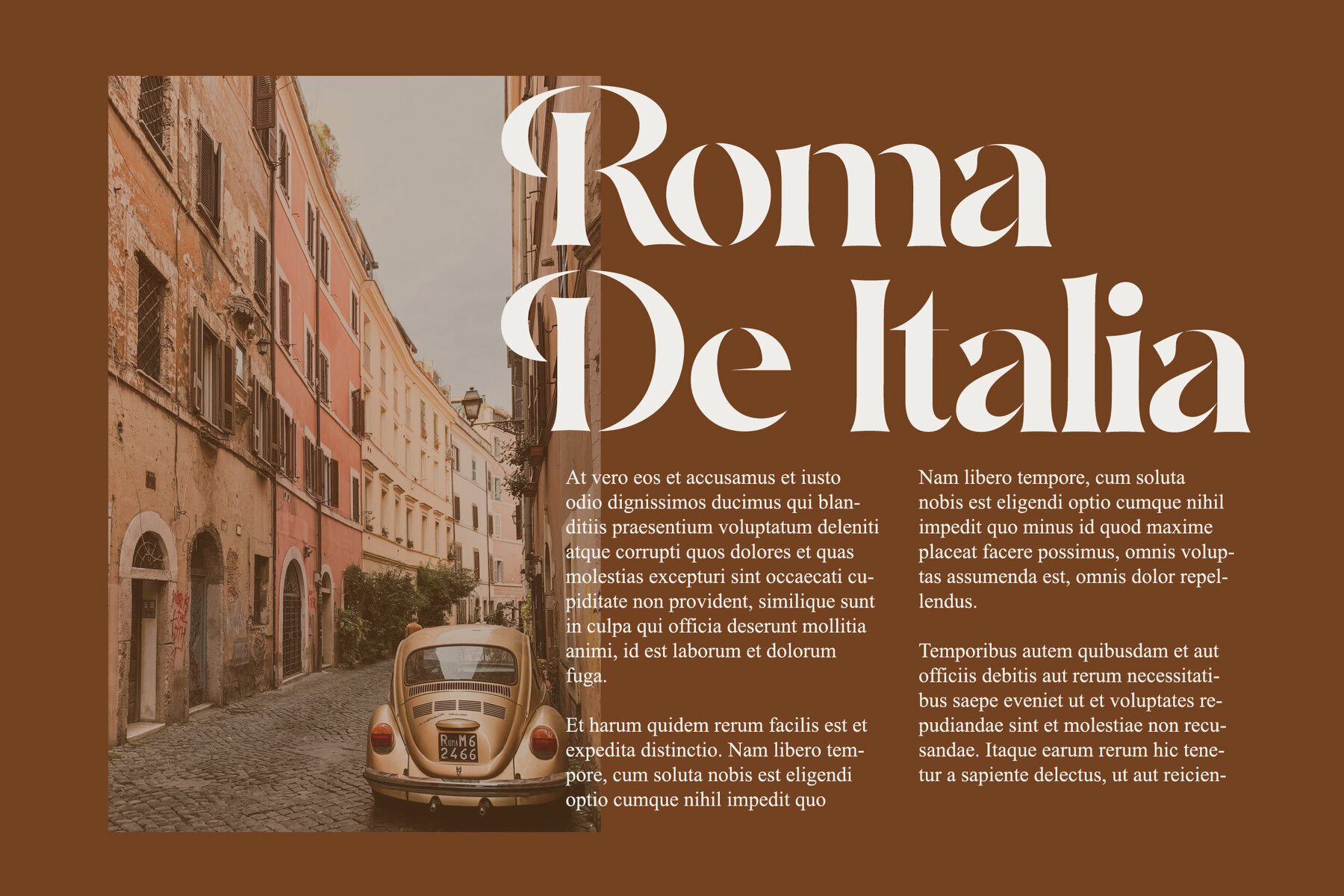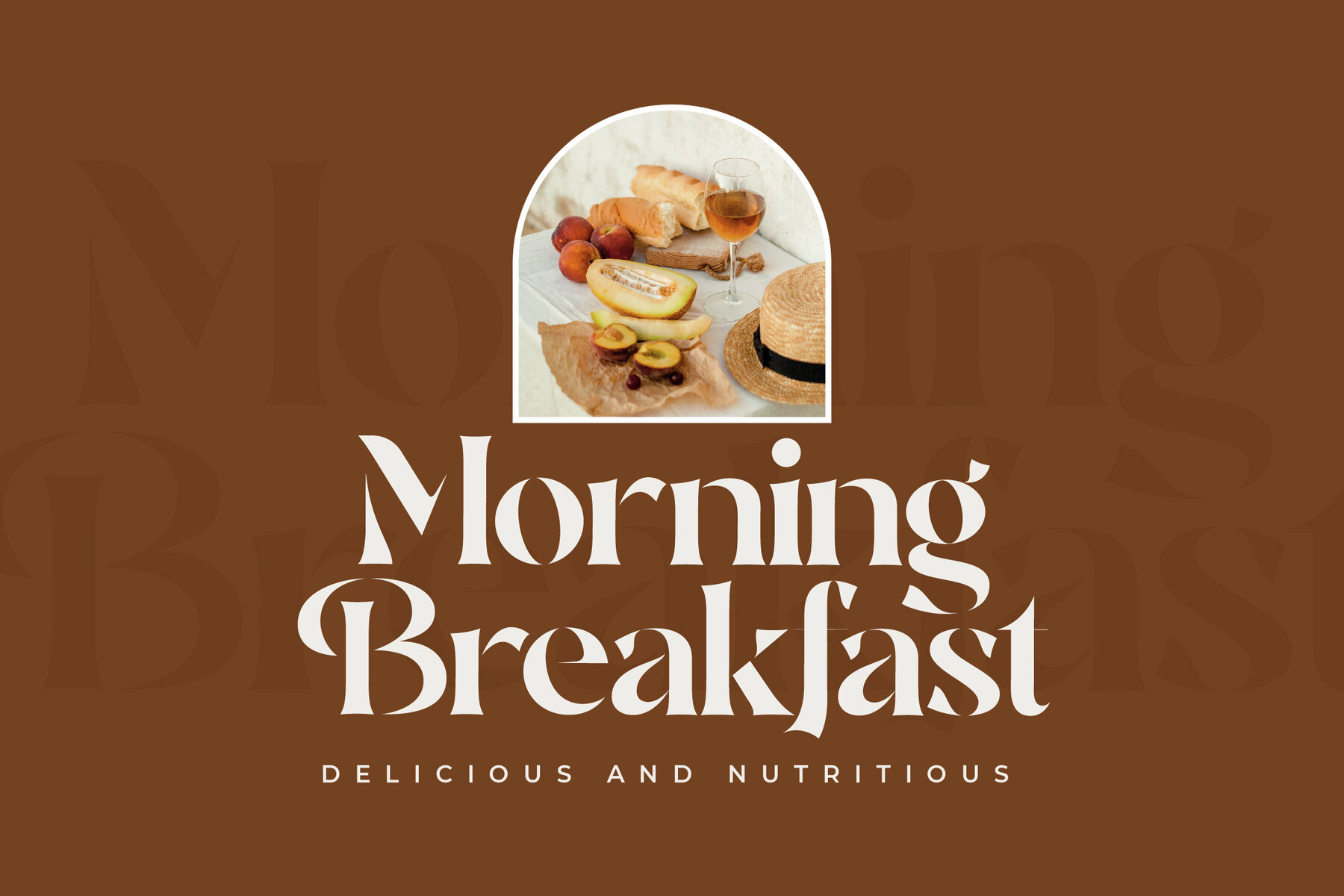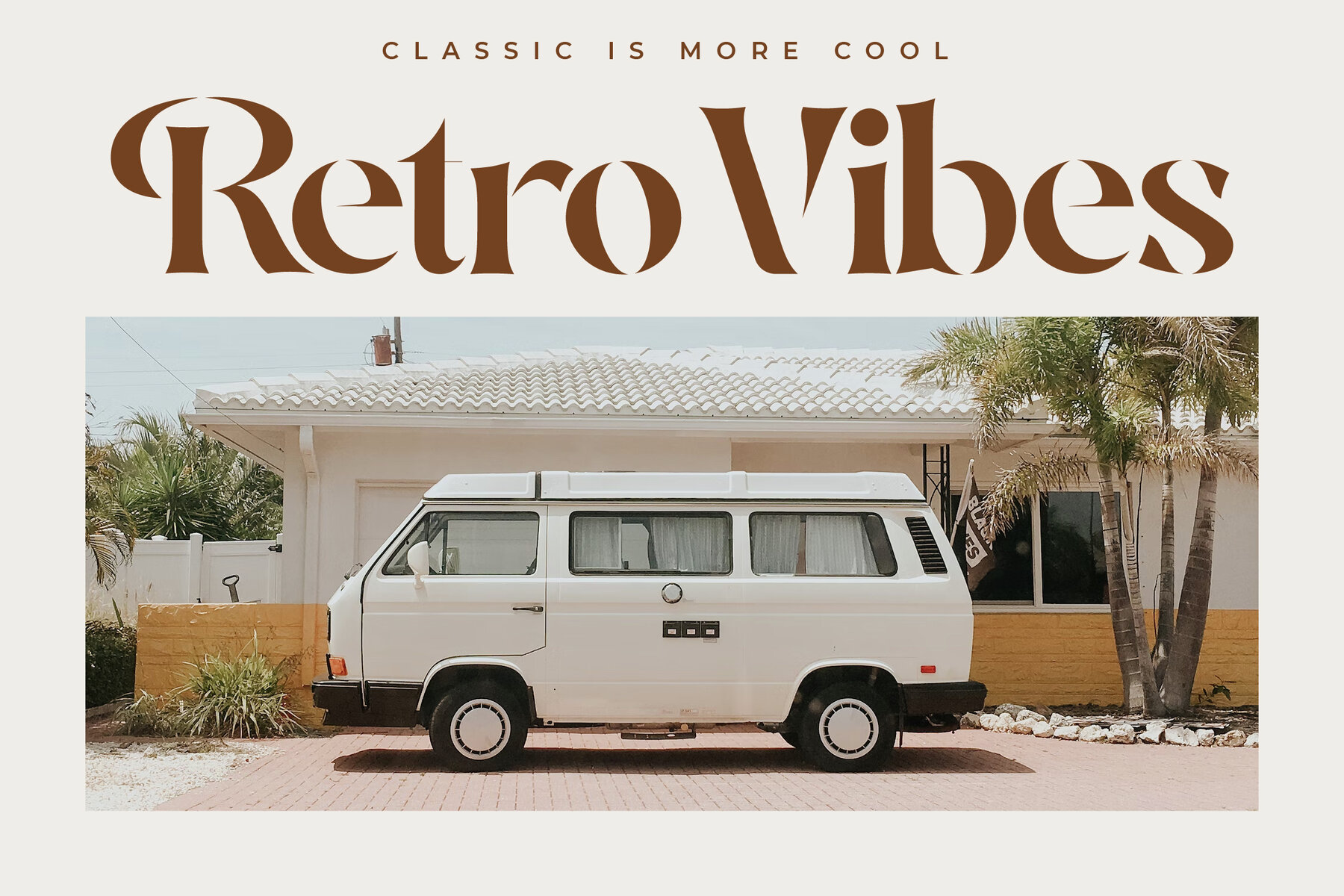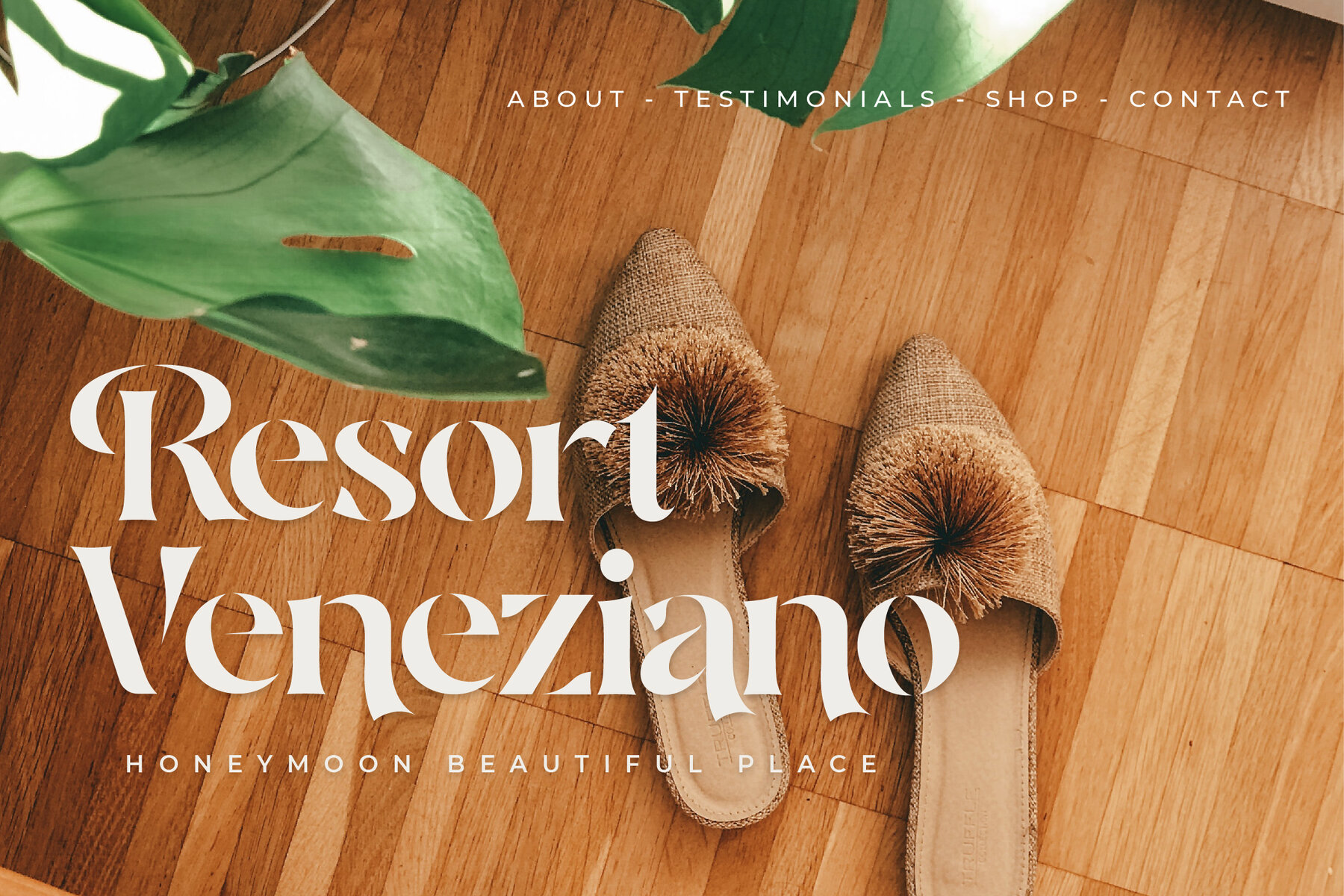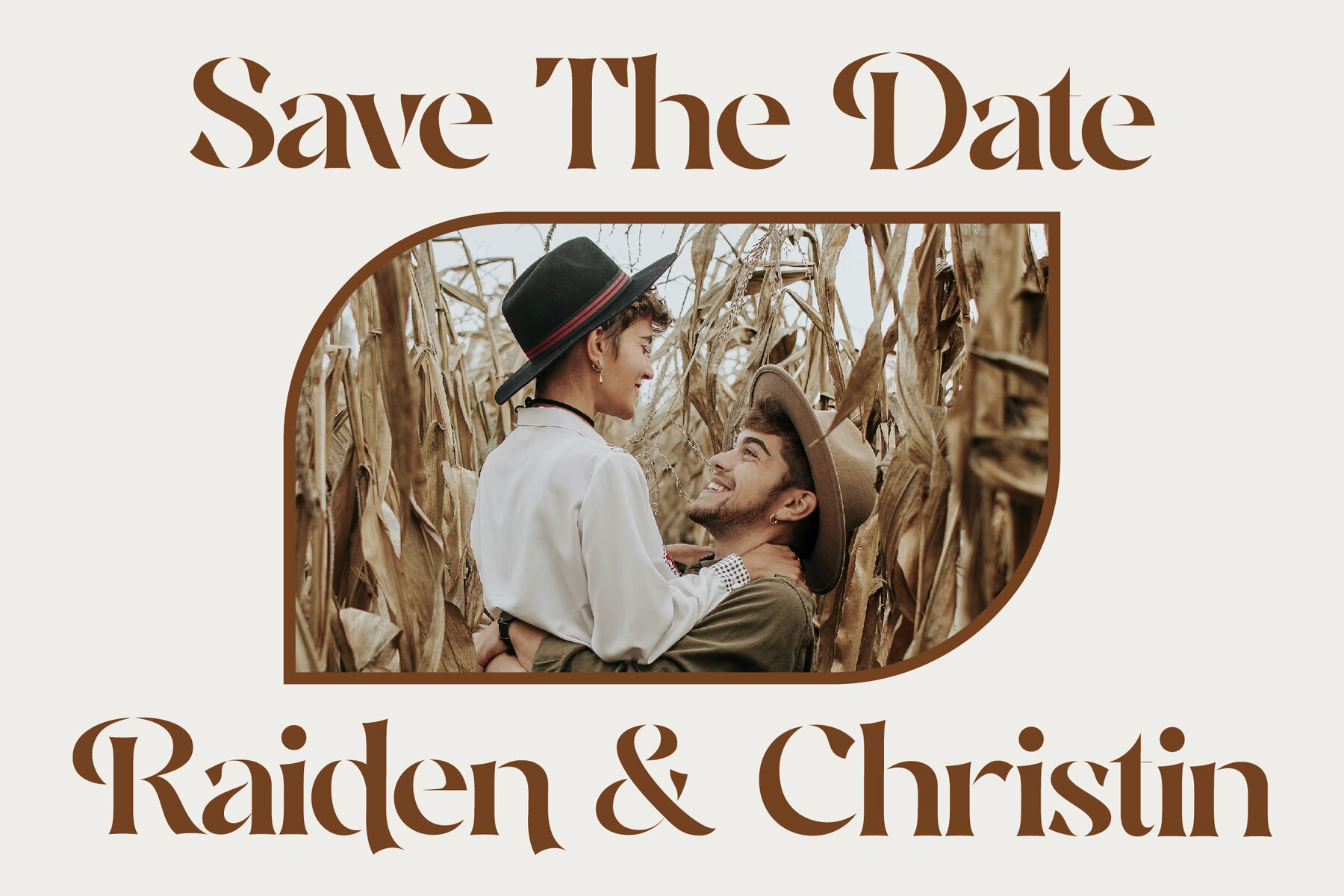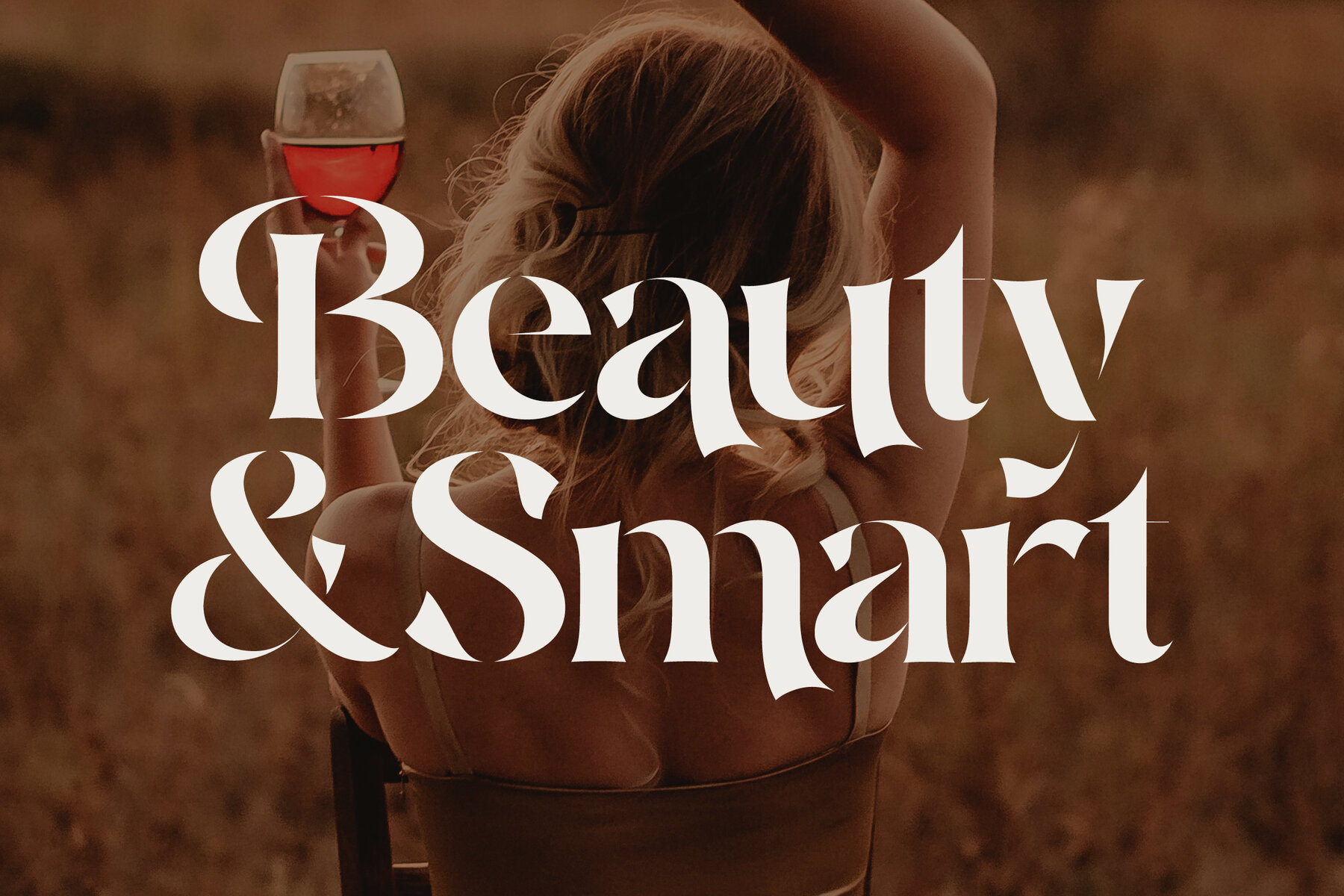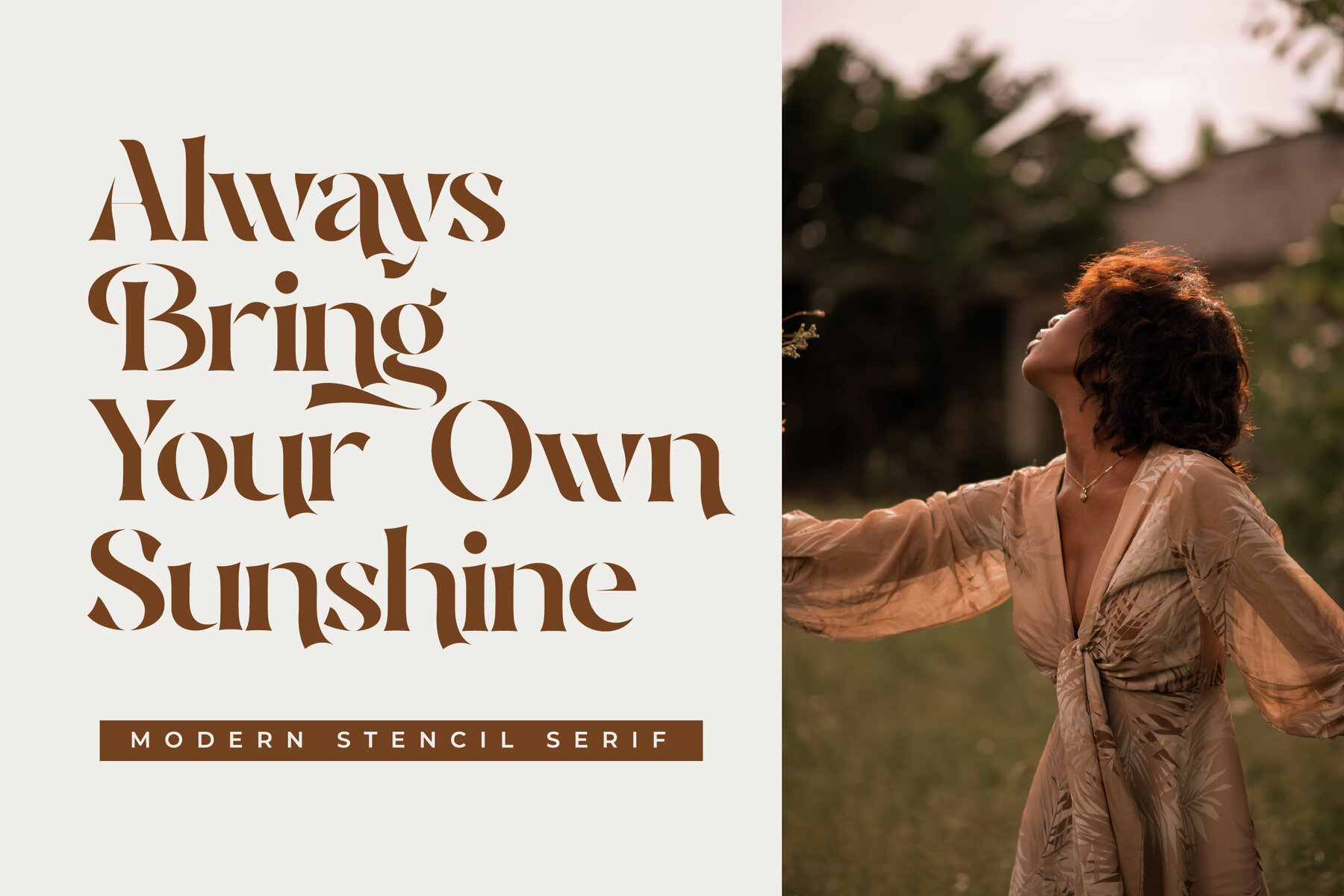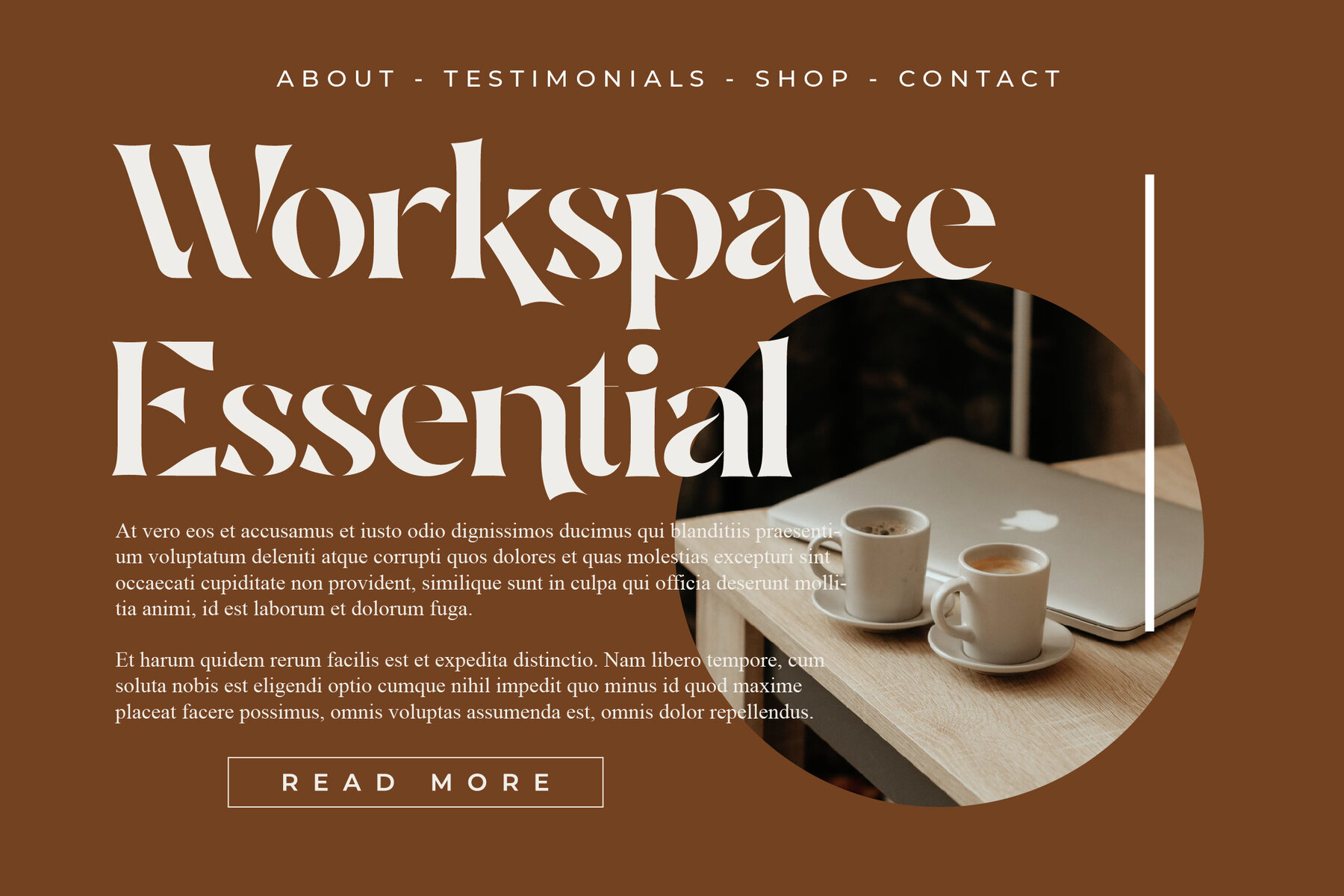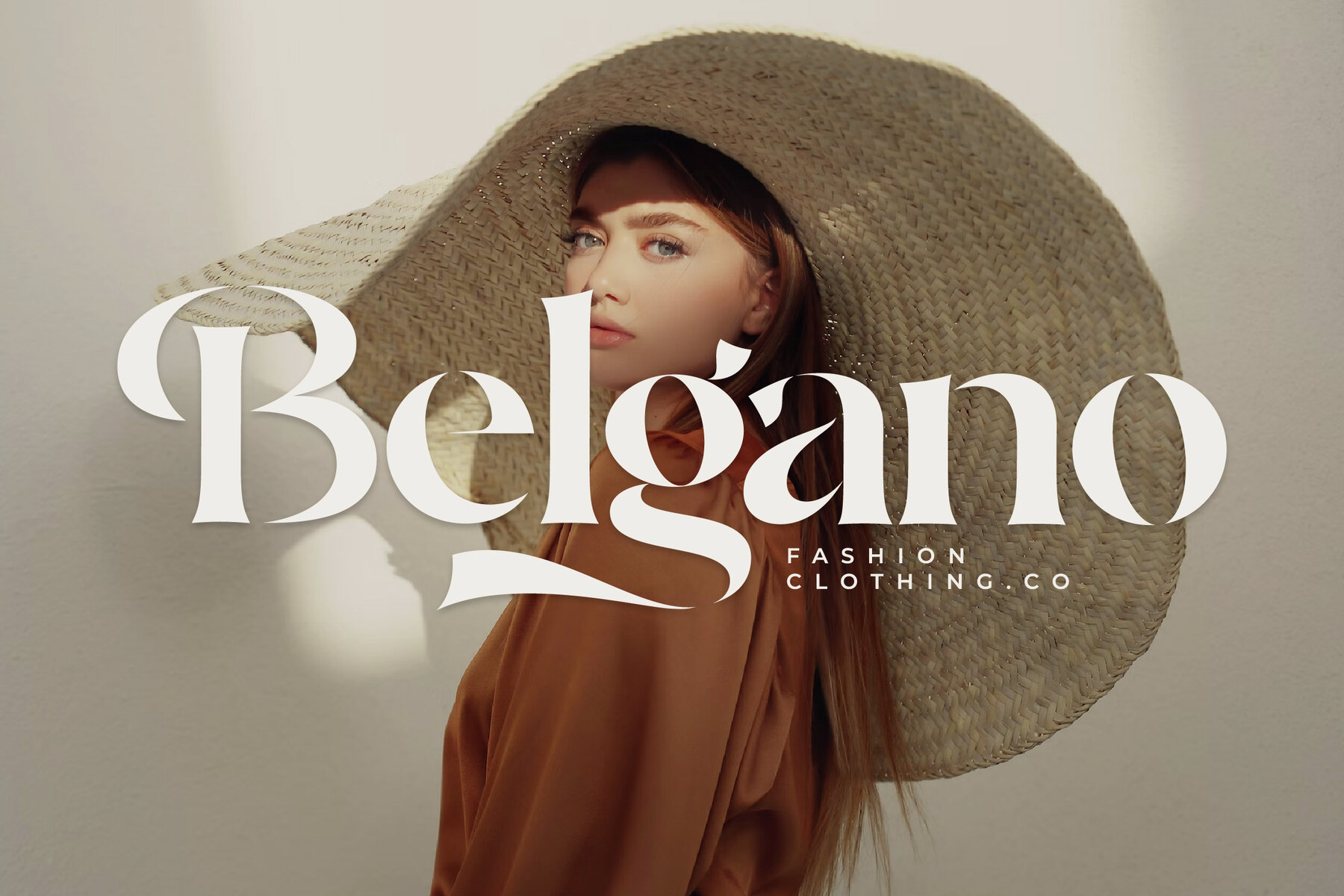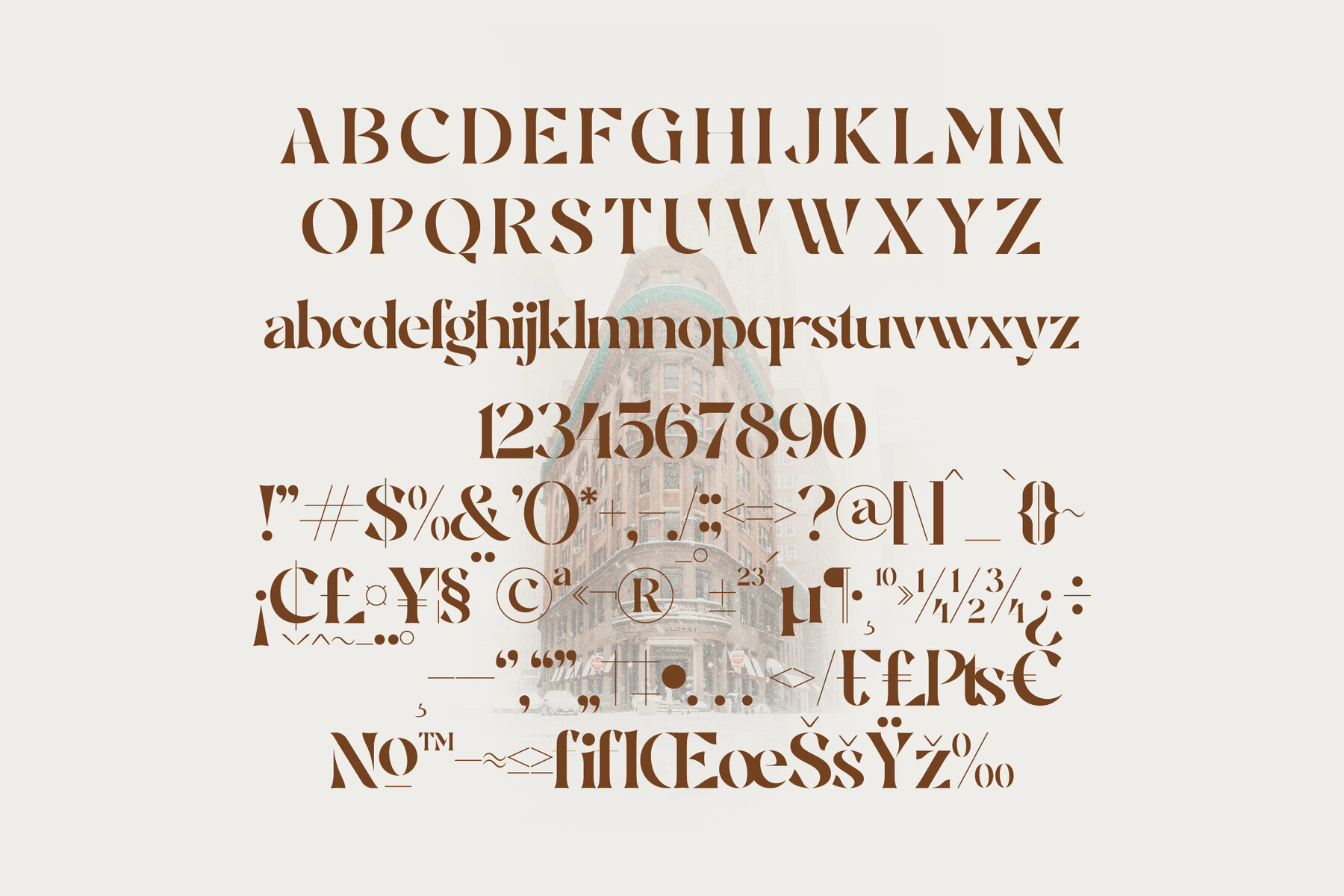
Brogte Font
Introducing Brogte, an exquisitely crafted serif typeface that marries modern design with classic elegance. Ideal for creating luxurious logos, captivating book and movie titles, and sophisticated fashion branding, Brogte is a versatile choice. Whether you are designing a magazine, exclusive apparel, or eye-catching quotes, Brogte's unique style offers a modern aesthetic appeal.Brogte Typeface